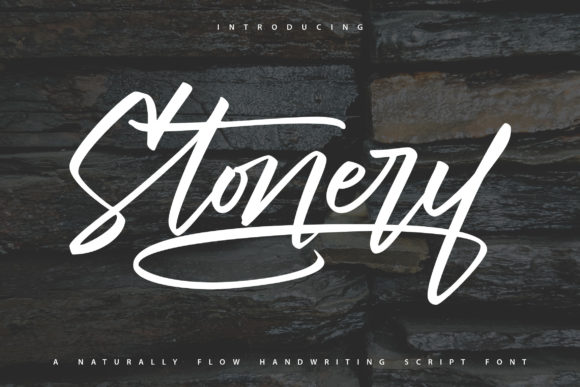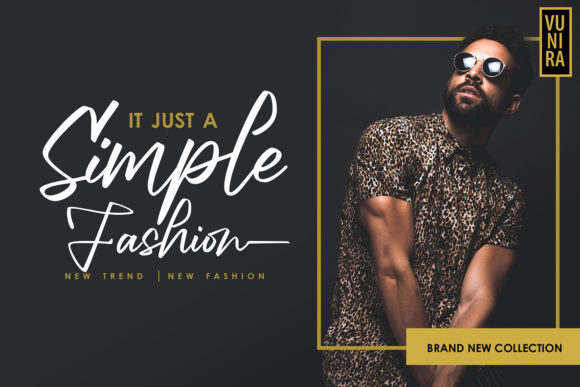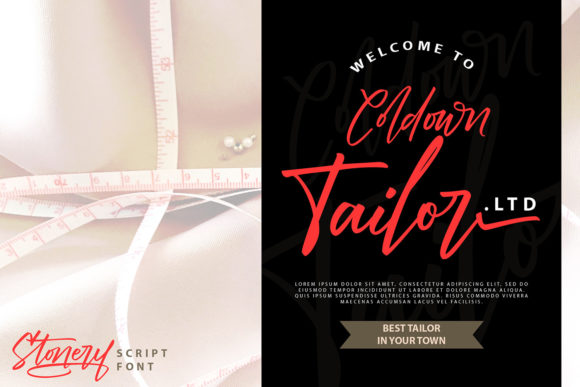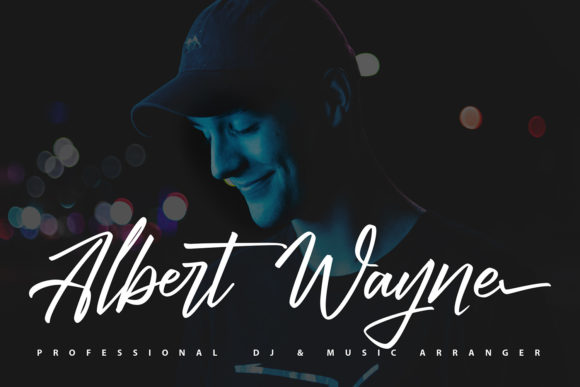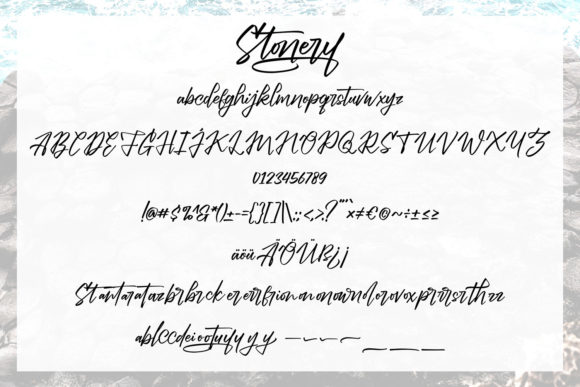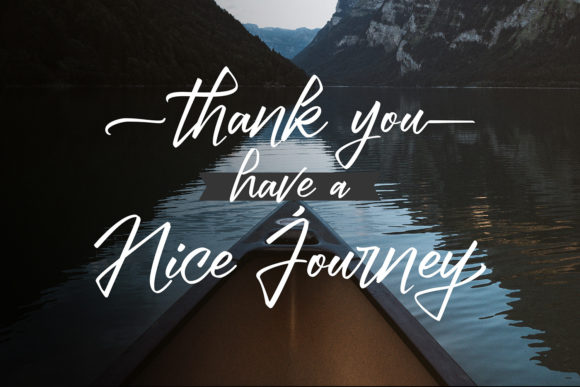
Stonery Font
About Stonery Font
Stonery is a natural flow handwriting script font with a calligraphy style. It looks beautiful on invitation like greeting cards, branding materials, business cards, quotes, posters, and more!